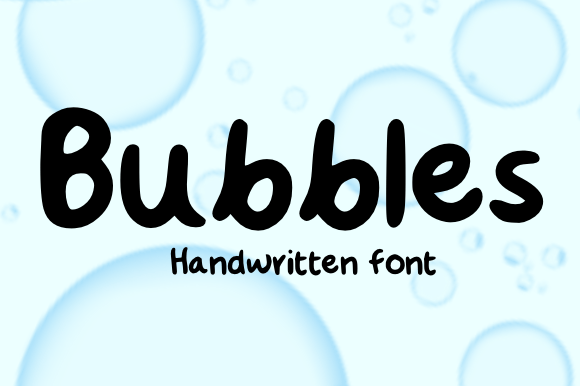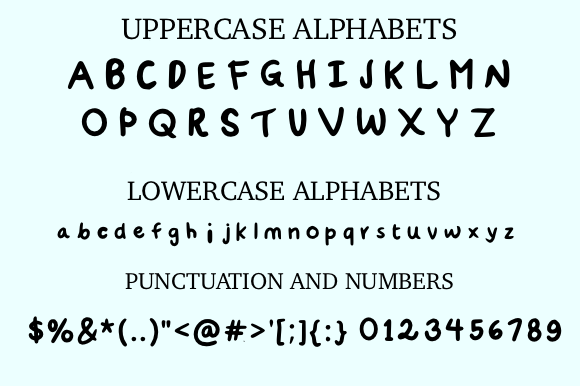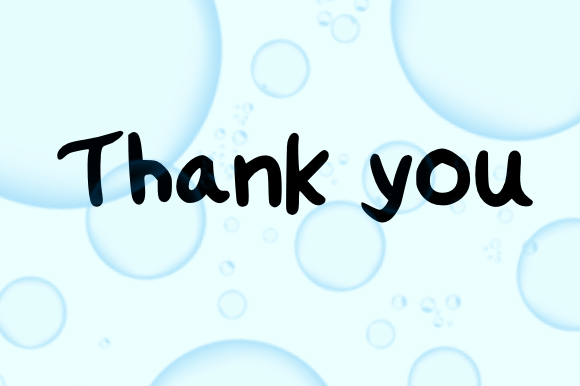
About Bubbles
Bubbles is a fun handwritten font. Its cuteness and simplicity make it a fantastic fit for a variety of projects, including mugs, T-shirts, logos, and more.